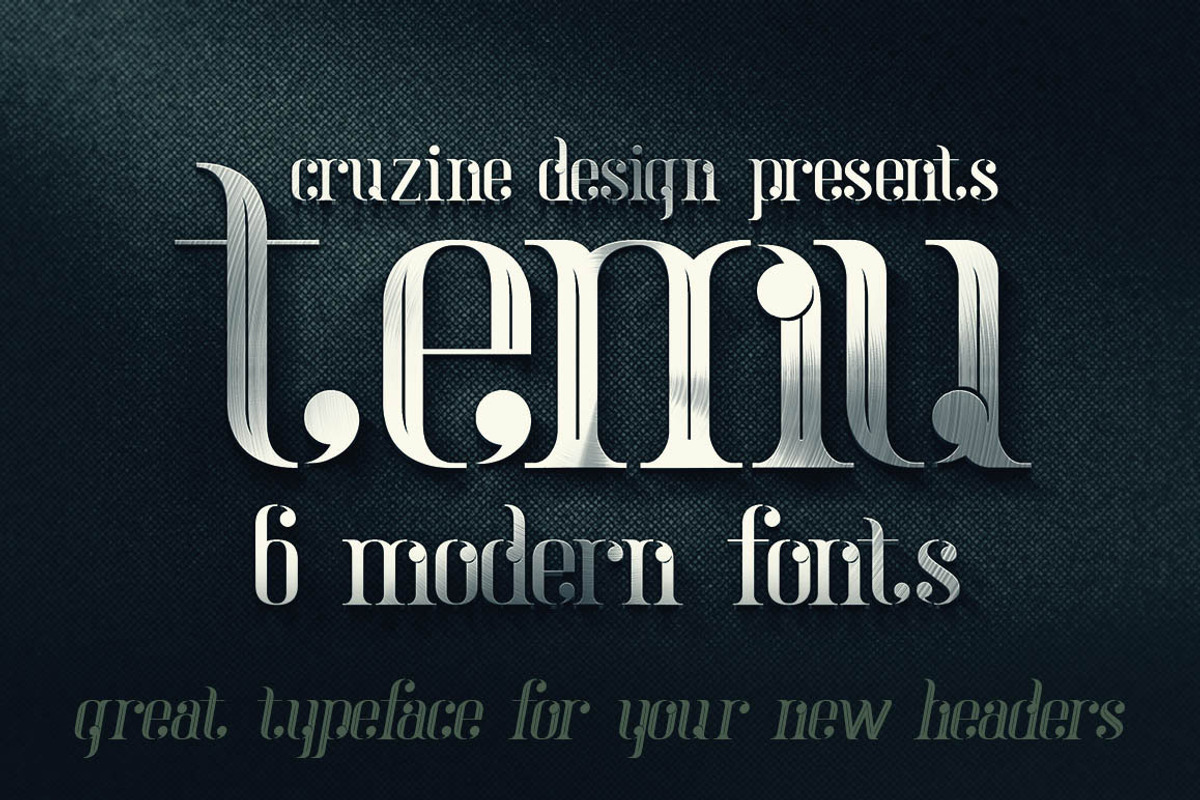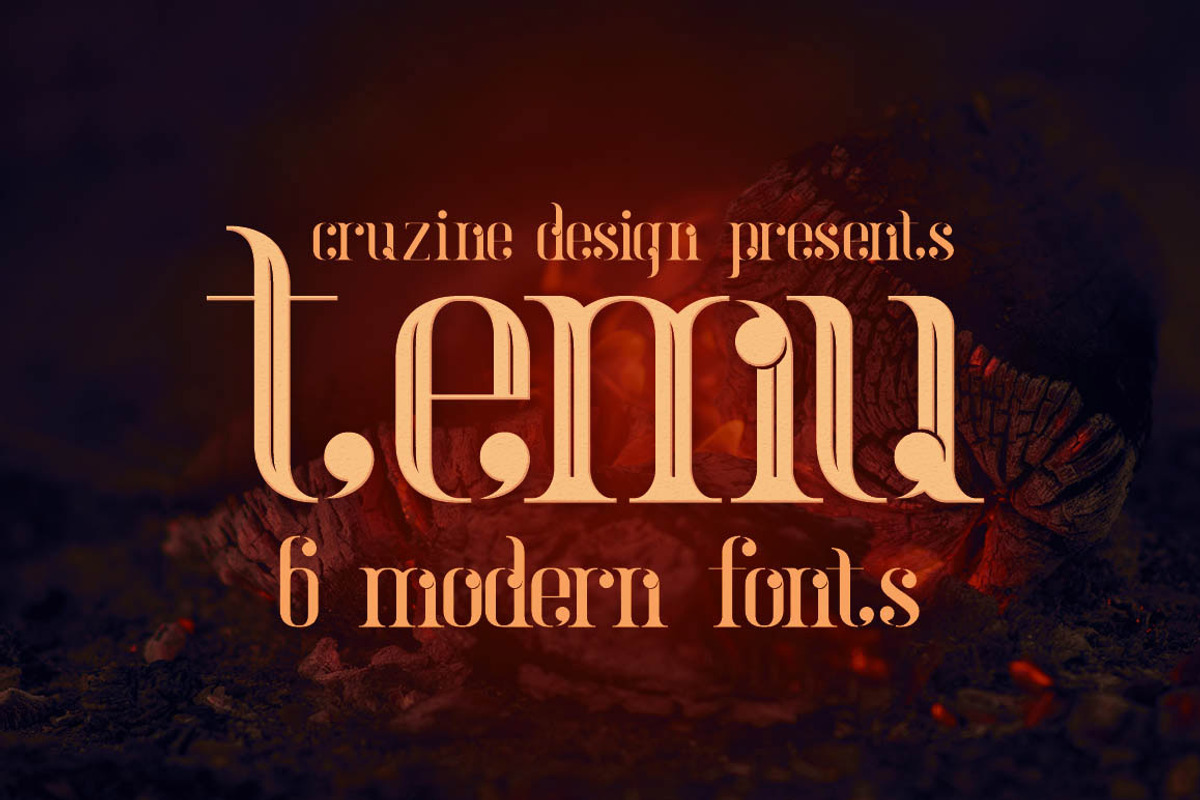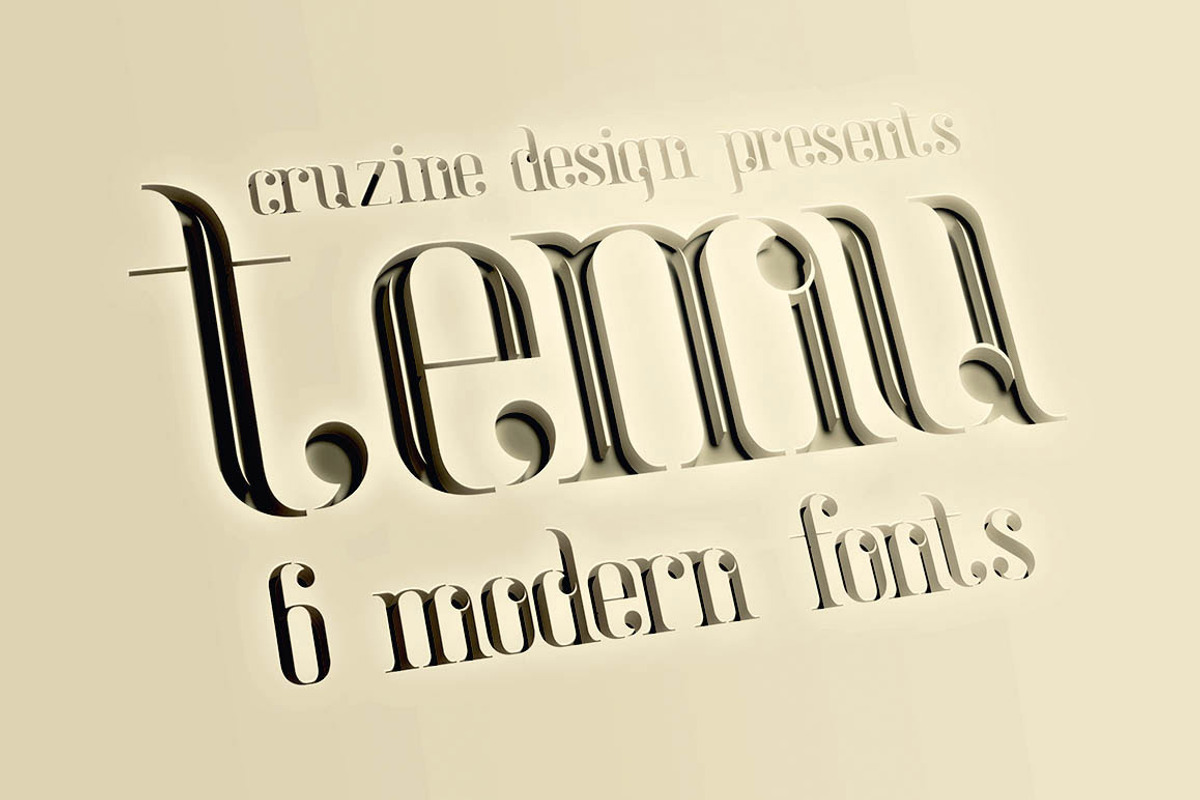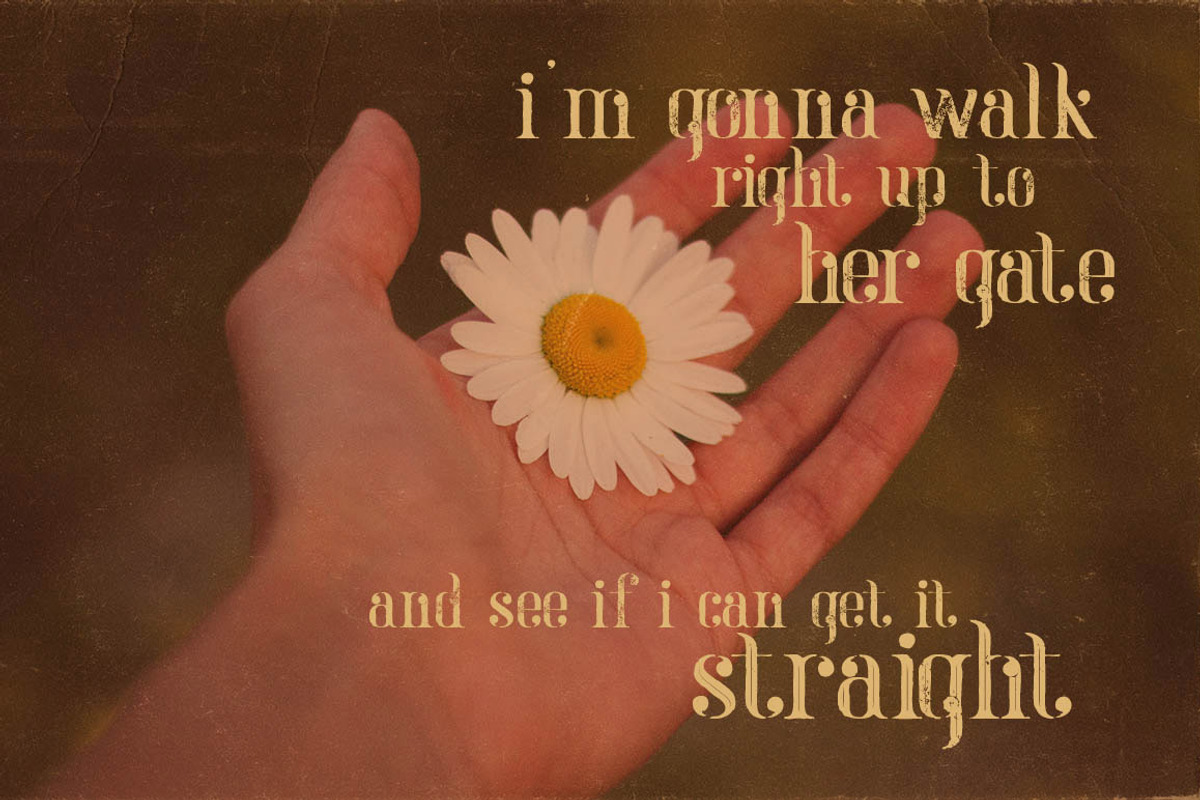
temu - Modern Font
temu - Modern Font by Cruzine is a font selected for branding, posters, packaging, typography.
Why temu - Modern Font is worth a look
temu - Modern Font by Cruzine fits naturally into Branding, posters, packaging, typography.